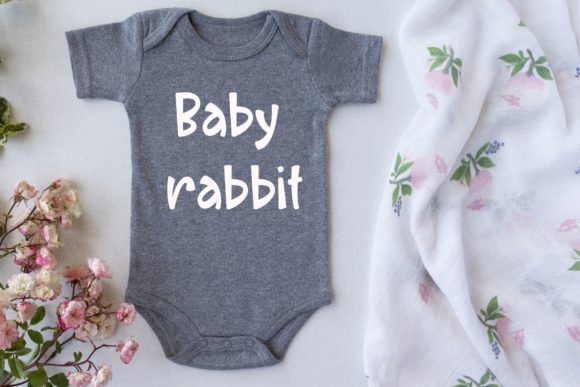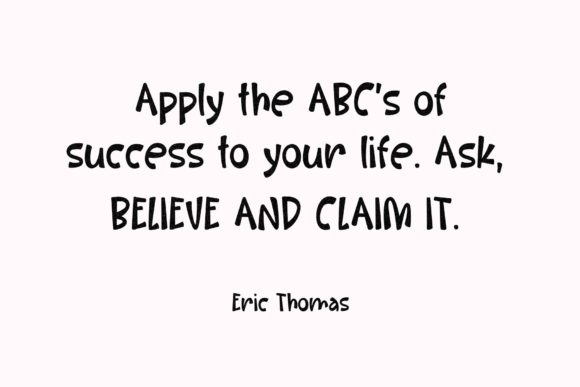
Cute Meow Nursery Font
db-ku.com - Script & Handwritten -- Cute Meow Nursery is an adorable handwritten font. Quirky and sweet, this font is perfect for children themed designs, especially when combined with bright colors.